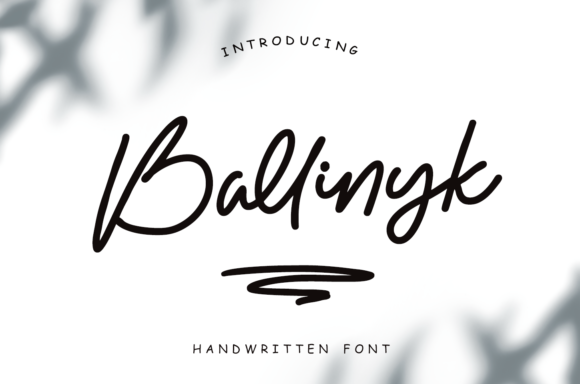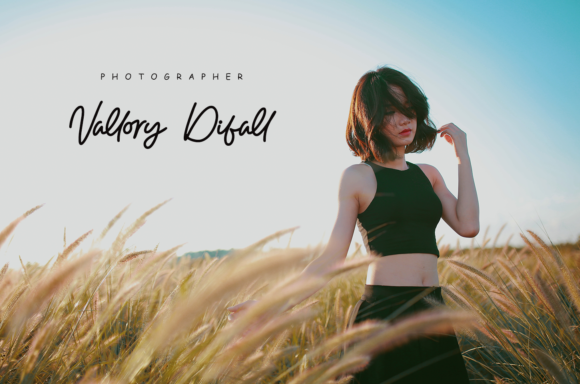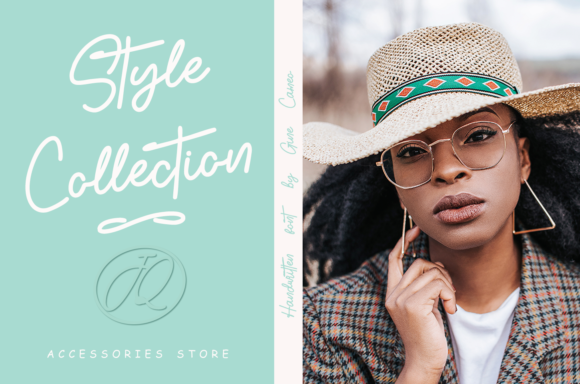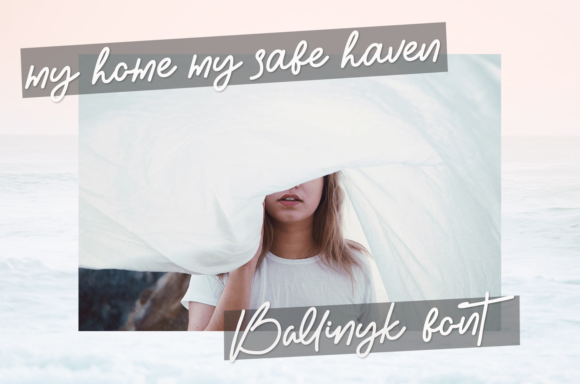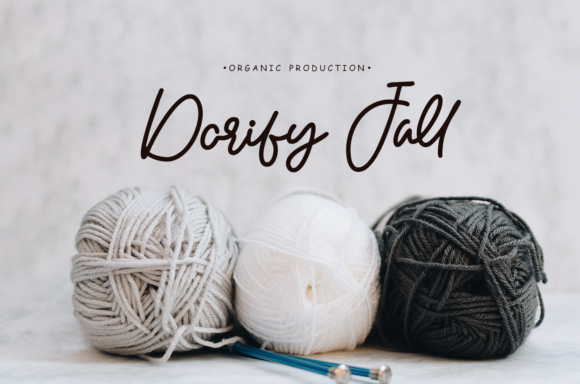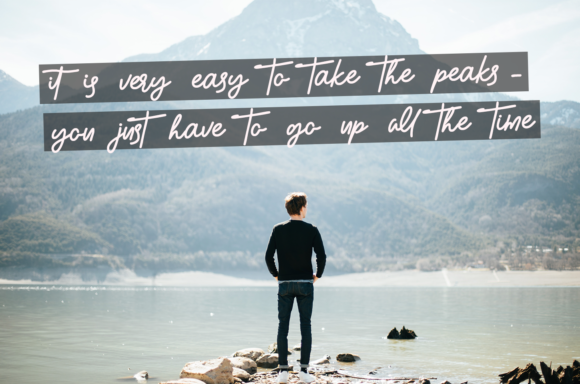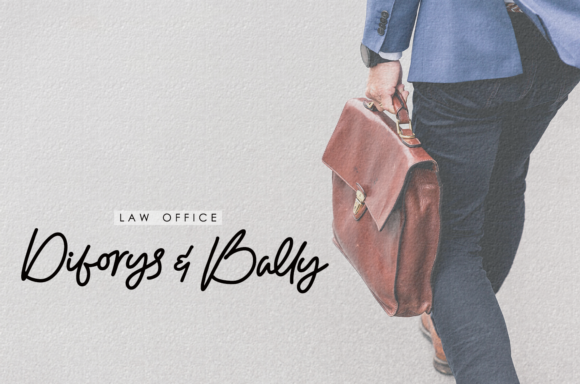
Ballinyk Font
About Ballinyk Font
Ballinyk is a font that exudes exquisite beauty and elegance, making it a true favorite for a variety of design projects. Its masterful design maintains classy calligraphic influences while infusing a contemporary and fresh touch, creating a captivating balance that enchants the eye.
With its graceful nature, Ballinyk brings a sense of sophistication and charm to your designs. Whether you’re working on wedding invitations, thank you cards, quotes, greeting cards, logos, business cards, or any other project, this font elevates each creation with its effortless beauty.
Ballinyk’s handwritten essence adds a personal and authentic touch to your designs, making them feel refined and special. It’s like an exquisite dance of pen strokes that infuses your creative ideas with a sense of elegance.
Incorporating Ballinyk into your designs allows you to explore a wide range of creative possibilities. Its versatility serves as a canvas for your imagination, empowering you to create visually stunning and captivating designs.
Moreover, Ballinyk’s contemporary and fresh elements ensure your designs stand out with a modern and captivating presence. Its unique charm sets your projects apart and makes them truly remarkable.
Fall in love with Ballinyk’s exquisite beauty as it transforms your ideas into stunning designs that resonate with sophistication and allure.
In summary, Ballinyk is more than just a font; it’s an exquisitely designed companion that enhances your creative ideas. Embrace its allure and notice how it transforms your projects into exceptional works of art. With Ballinyk, your designs become true expressions of elegance and contemporary charm, leaving a lasting impact on all who encounter them. Let Ballinyk be the font that adds a touch of magic to your designs, creating a world of endless possibilities and capturing the hearts of your audience.